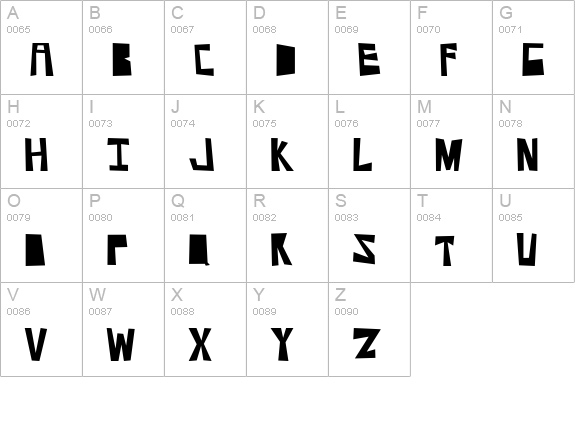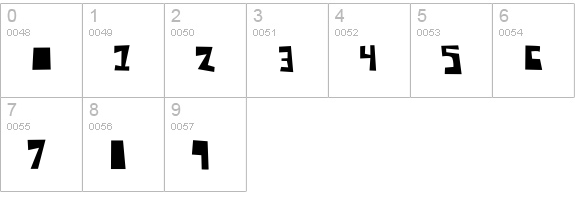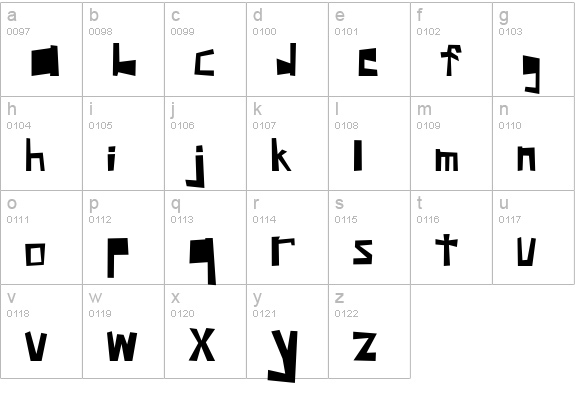
Shithouse Font Details
Introducing Shithouse, a bold and striking font that is sure to make a statement in any design project. With its unique and edgy letterforms, this font exudes confidence and creativity. Whether you're working on a poster, logo, or website, Shithouse will add a touch of modernity and attitude to your designs. What sets Shithouse apart is not only its strong visual appeal, but also its versatility. This font is perfect for both headlines and body text, allowing you to create cohesive and visually pleasing compositions. Its bold yet legible letterforms ensure that your message comes across loud and clear. But that's not all – the best part about Shithouse is that it's completely free! Yes, you read that right. You can freely download this font at FontsMarket.com, making it accessible to designers of all levels. Now you can add a touch of boldness and uniqueness to your projects without breaking the bank. Furthermore, Shithouse is available in multiple formats, including TrueType (.ttf) and OpenType (.otf), ensuring compatibility with various design software and applications. This font supports a wide range of languages, allowing you to reach a global audience with your designs. So why wait? Download Shithouse today and unleash your creativity. Whether you're designing for a rebellious brand, an edgy event, or simply want to make a bold statement, this font will undoubtedly elevate your work to the next level. Embrace the freedom of expression and let Shithouse be your go-to font for all your design needs.